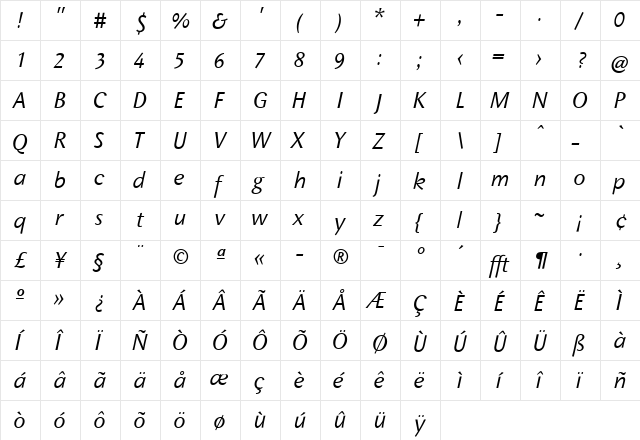
Wunderlich Italic
Design Context for Wunderlich Typeface
Wunderlich takes a measured approach to typography — its balanced proportions and neutral character make it a reliable workhorse for both digital and print work. The dynamic lean of this cut emphasises speed and emphasis in any layout.
Pro Tip: Try Wunderlich for annotation and caption copy alongside an upright companion — the contrast in angle creates a dynamic but ordered typographic system.